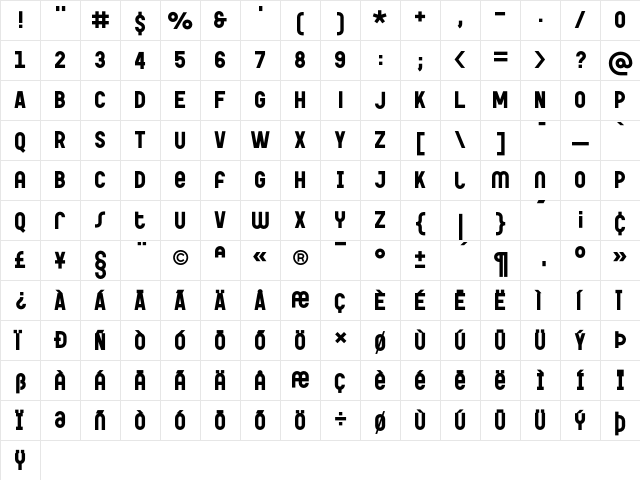
Garaje 53 Unicase Black Font Preview
Garaje 53 Unicase Black
Garaje 53 Unicase Black Font Details
| Foundry | Thomas Huot-Marchand / 256TM |
| Designer | Thomas Huot-Marchand |
Design Context for Garaje 53 Unicase Typeface
Garaje 53 Unicase takes a measured approach to typography — its balanced proportions and neutral character make it a reliable workhorse for both digital and print work.